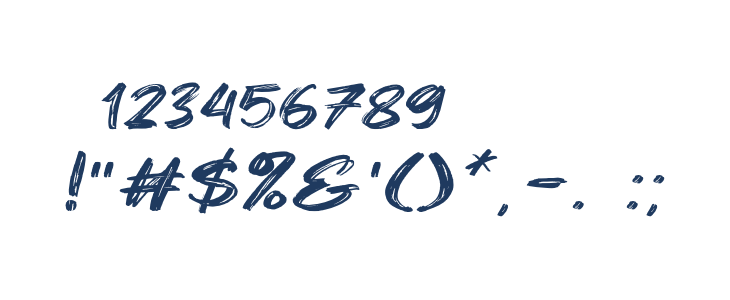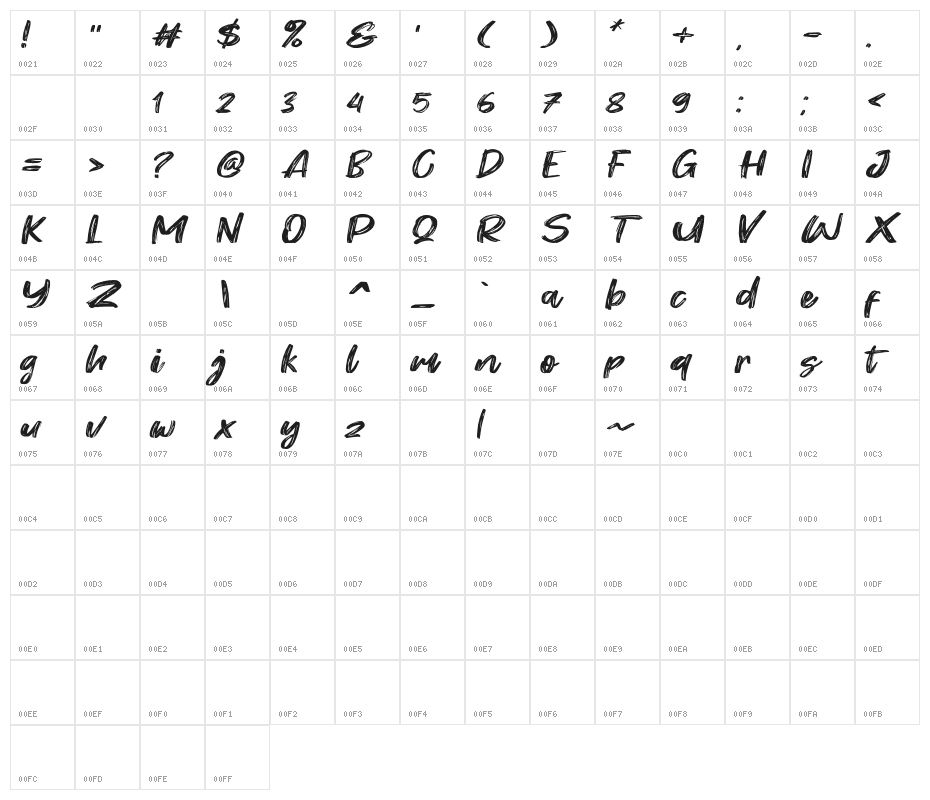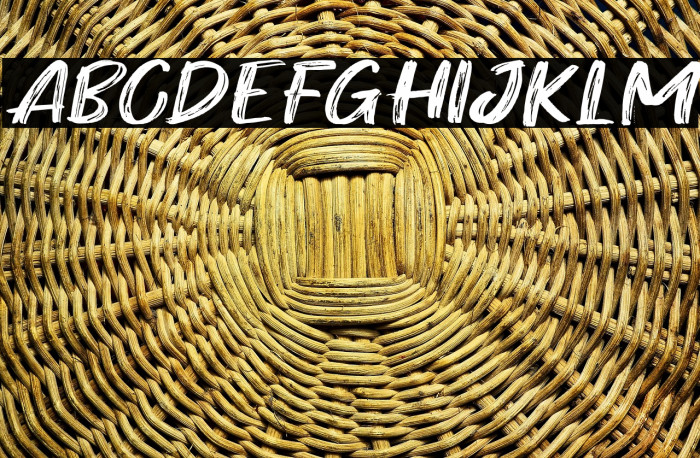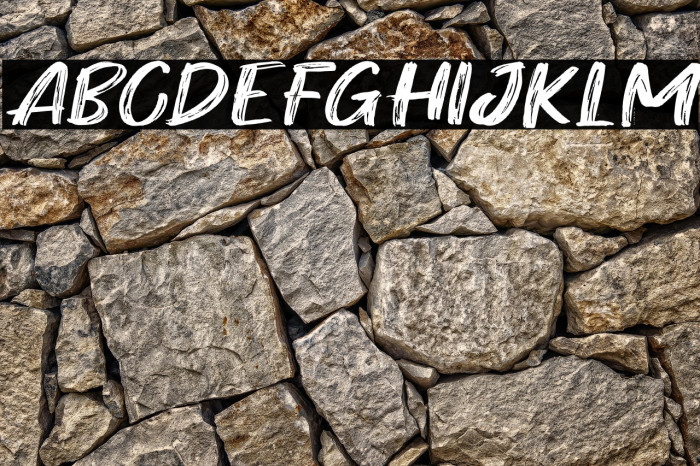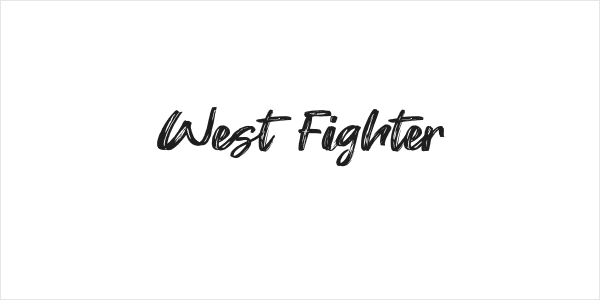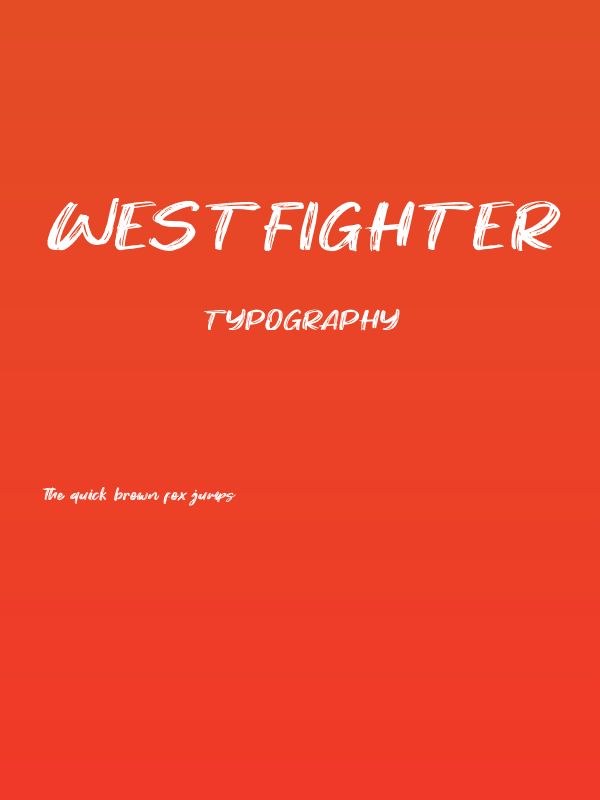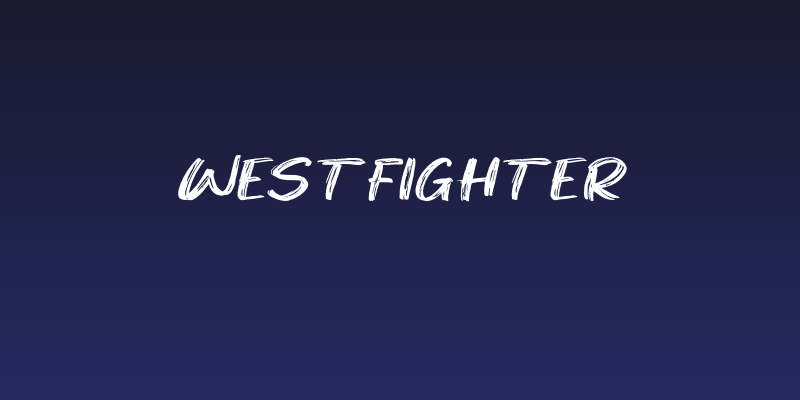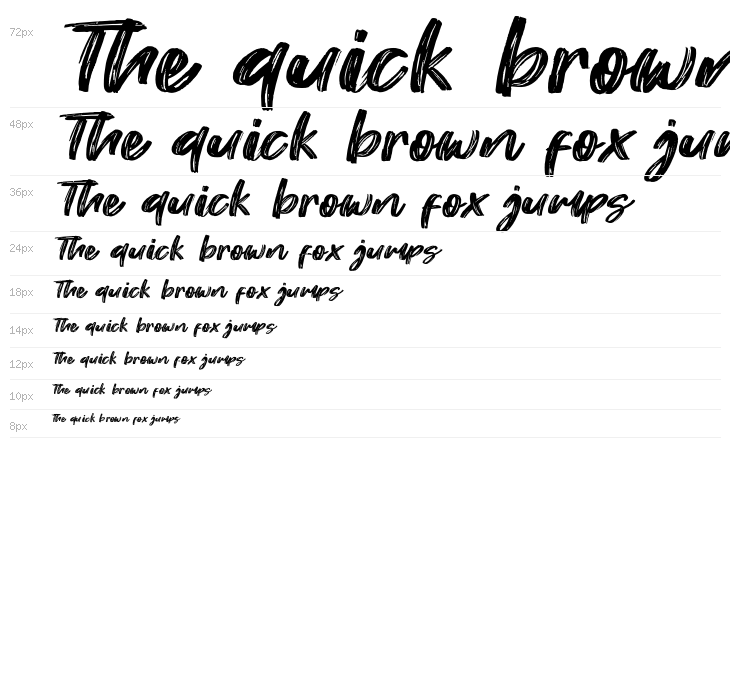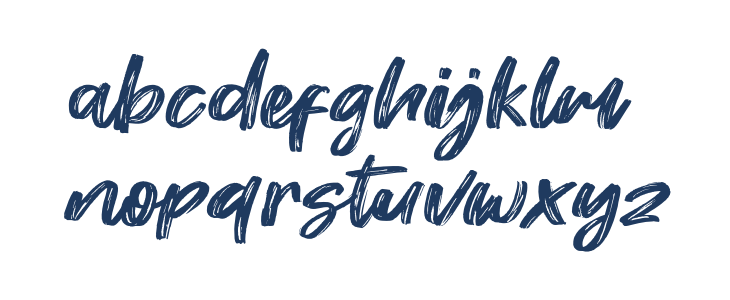
West Fighter Font
West Fighter Description
This font exudes a bold and dynamic brush script style, characterized by its energetic and expressive strokes. Each letter is crafted with a sense of movement and fluidity, giving it a hand-painted appearance. The uppercase letters are slightly more structured, while the lowercase letters maintain a casual and free-flowing form. Numbers and special characters are consistent with the overall aesthetic, ensuring a cohesive look across all elements. The font's rough edges and varying stroke widths add to its artistic and informal charm, making it ideal for creative and eye-catching designs.
| Proposed Projects | Ideal for branding, posters, social media graphics, and any project requiring a bold, artistic touch. |